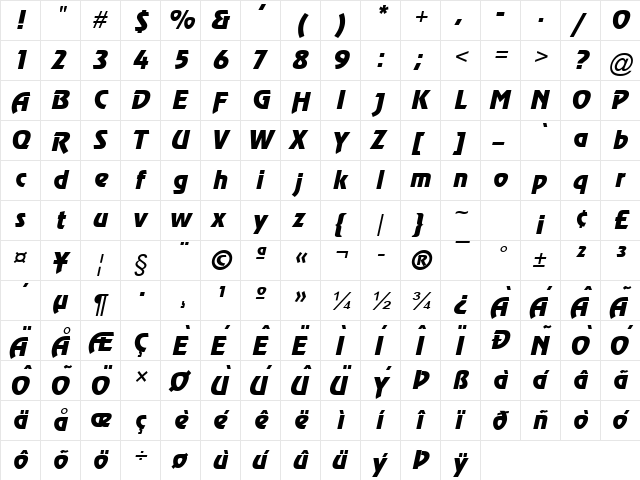
Review Italic
Design Context for Review Typeface
Review is a composed and adaptable typeface that performs quietly and consistently across a wide range of design contexts. The slanted form adds forward momentum and visual energy.
Pro Tip: Try Review for annotation and caption copy alongside an upright companion — the contrast in angle creates a dynamic but ordered typographic system.